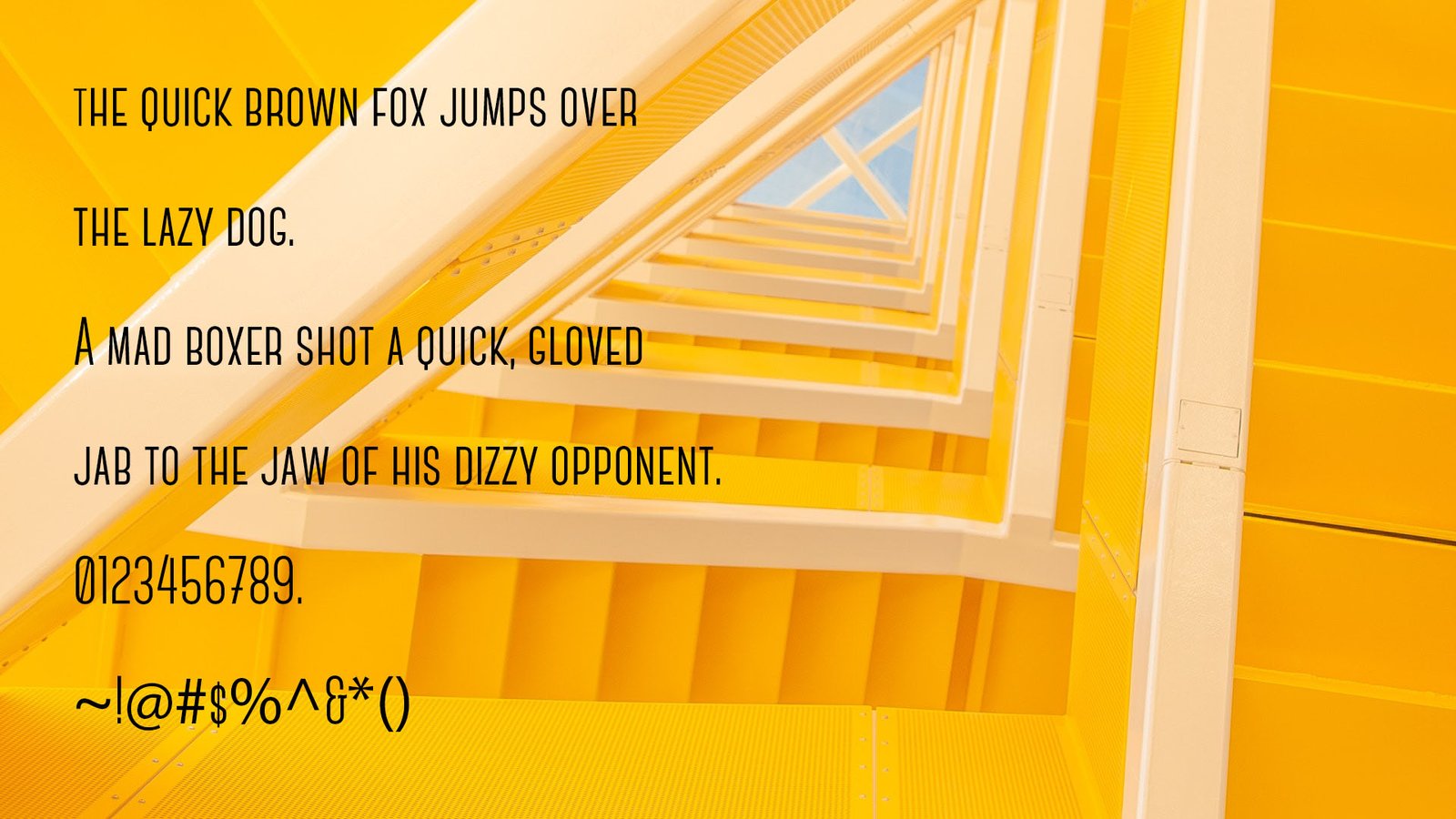
Welcome, We are initiating with you the best Sans Serif typeface. This beautiful typeface name is Canter Font. It was designed and published by a famous designer is known as the name of Christopher J. Lee. It is available in six wonderful and fantastic weights.
| Name | Canter Font |
| Designer | Christopher J. Lee |